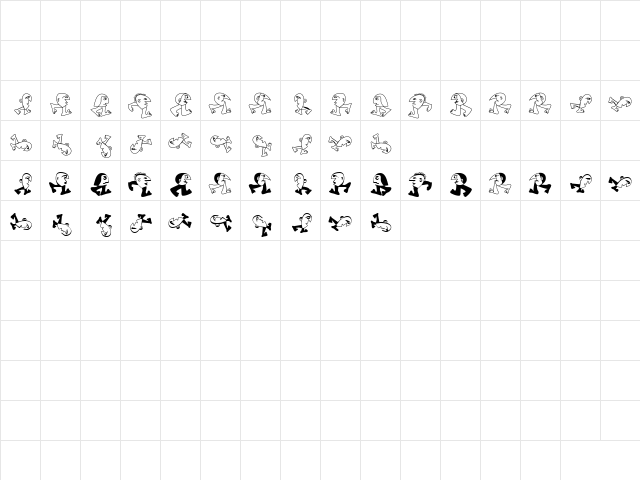
KopfFuessler Regular
Design Context for KopfFuessler Typeface
KopfFuessler is a composed and adaptable typeface that performs quietly and consistently across a wide range of design contexts.